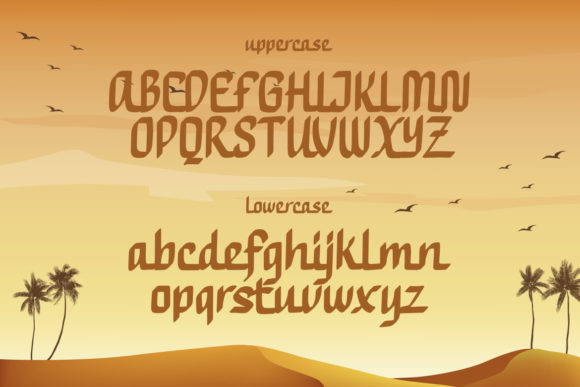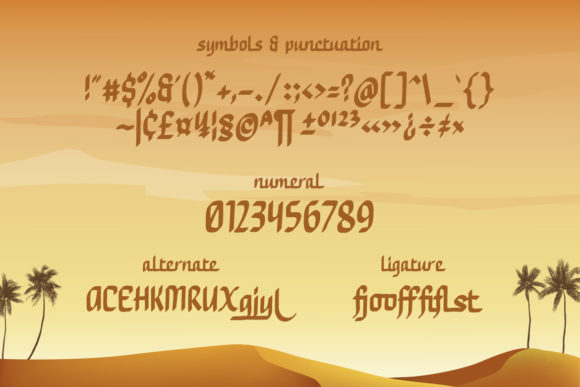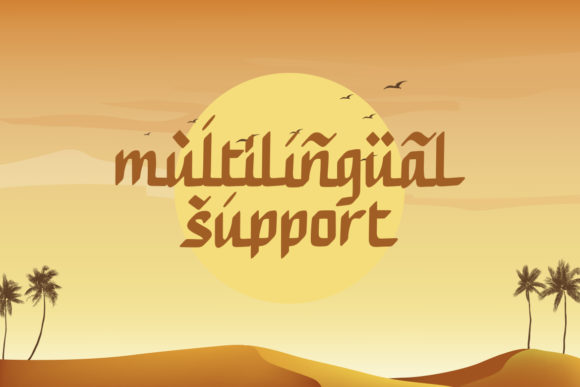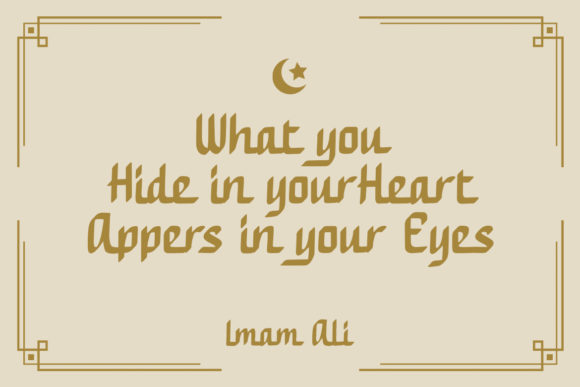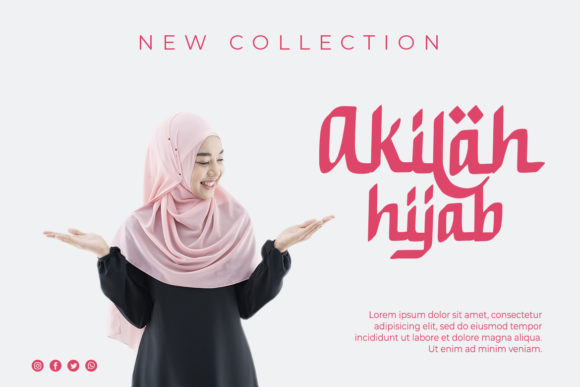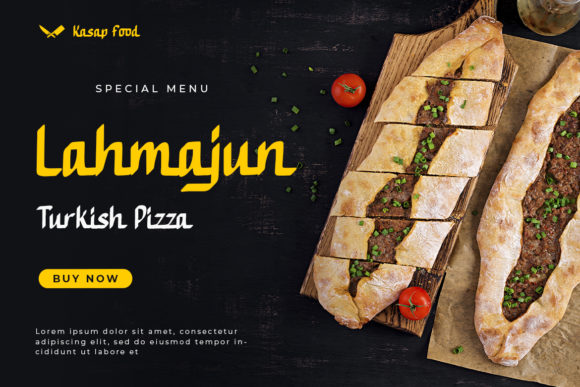
Introducing Hakan Font: The Modern Arabic Paint Brushed Handwritten Font
In the world of typography, fonts play a crucial role in conveying the tone and personality of a design. For designers and crafters looking for a unique and elegant touch, Hakan Font is an excellent choice. This modern, Arabic paint brushed handwritten font is perfect for adding a personal and sophisticated feel to various design projects.
What is Hakan Font?
Hakan Font is a beautifully crafted, handwritten font that boasts a modern and elegant look. Its unique blend of Arabic calligraphy and paint-brushed strokes gives it a distinctive character that sets it apart from other fonts. The font’s design is inspired by traditional Arabic art, making it an excellent choice for designers looking to add an exotic and cultural touch to their work.
Features of Hakan Font
- Modern and Elegant Design: Hakan Font features a sleek and contemporary design that is perfect for modern designs.
- Arabic Calligraphy Inspiration: The font’s inspiration from traditional Arabic calligraphy makes it an excellent choice for designers looking to add a cultural touch to their work.
- Paint Brushed Strokes: The font’s paint-brushed strokes give it a unique, hand-painted look that adds a personal touch to designs.
- Multilingual Support: Hakan Font supports multiple languages, making it a versatile choice for designers working on international projects.
Use Cases for Hakan Font
Hakan Font is a versatile font that can be used in a variety of design projects, including:
- Wedding Invitations: The font’s elegant and sophisticated design makes it perfect for wedding invitations and other wedding-related designs.
- Thank You Cards: Add a personal touch to thank you cards and other greeting cards with Hakan Font.
- Quotes and Posters: The font’s modern and elegant design makes it an excellent choice for quotes and posters.
- Logos and Branding: Use Hakan Font to create unique and memorable logos and branding materials.
- Business Cards: Add a touch of elegance to business cards and other corporate designs with Hakan Font.
Why Choose Hakan Font?
With so many fonts available, why choose Hakan Font? Here are a few reasons:
- Unique Design: Hakan Font’s unique blend of Arabic calligraphy and paint-brushed strokes makes it a standout font that will add a distinctive touch to designs.
- Elegant and Sophisticated: The font’s elegant and sophisticated design makes it perfect for designs that require a high level of professionalism.
- Easy to Read: Despite its unique design, Hakan Font is easy to read, making it perfect for body text and other long-form content.
Tips for Using Hakan Font
Here are a few tips for using Hakan Font in your designs:
- Pair with Other Fonts: Hakan Font pairs well with other fonts, especially sans-serif fonts. Experiment with different font combinations to find the perfect look for your design.
- Use for Headings and Titles: Hakan Font is perfect for headings and titles. Use it to add a touch of elegance and sophistication to your design.
- Experiment with Colors: The font’s paint-brushed strokes make it perfect for designs with bold and bright colors. Experiment with different color combinations to find the perfect look for your design.
In conclusion, Hakan Font is a unique and elegant font that is perfect for designers and crafters looking to add a personal and sophisticated touch to their designs. With its modern and elegant design, Arabic calligraphy inspiration, and paint-brushed strokes, Hakan Font is an excellent choice for a variety of design projects. Whether you’re designing wedding invitations, logos, or greeting cards, Hakan Font is sure to make your design stand out.